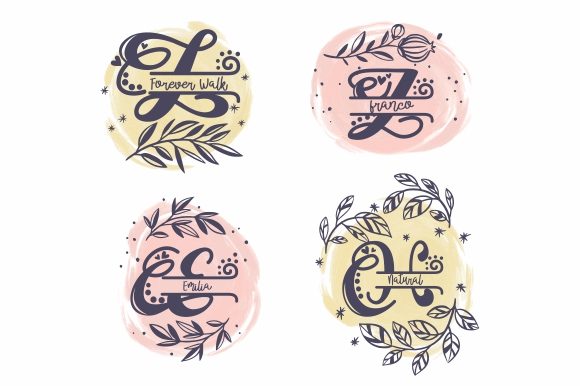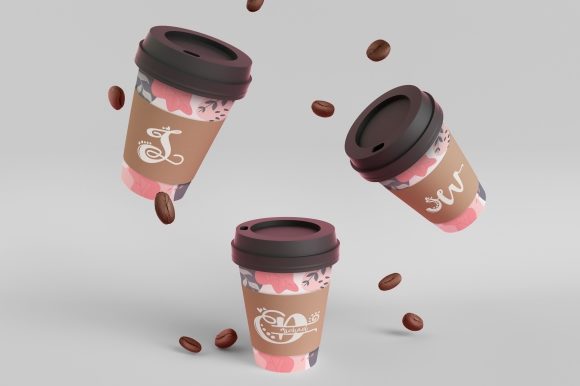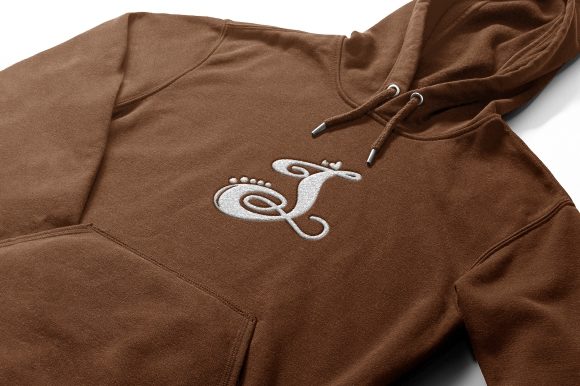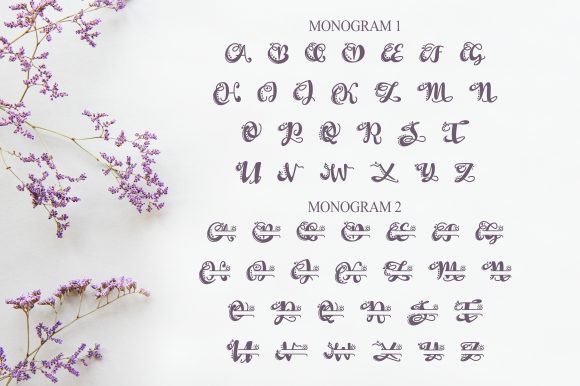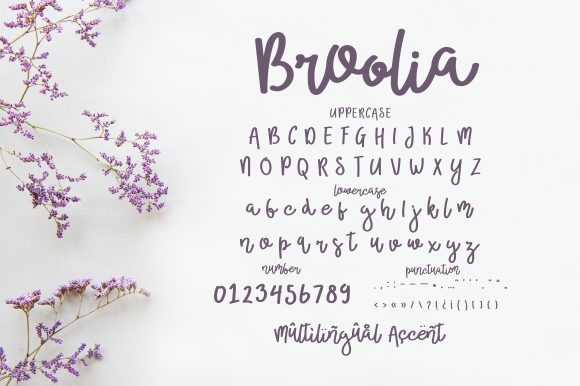
Introducing Broolia Monogram Font: The Sweet and Delicate Handwritten Font for Your Creative Projects
Are you a designer, crafter, or DIY enthusiast looking for a beautiful and elegant font to add a personal touch to your creations? Look no further than Broolia Monogram Font, a sweet and delicate handwritten font that is sure to capture your heart. With its authentic feel and versatility, Broolia Monogram is the perfect choice for a wide range of creative projects, from wedding invitations and stationery art to social media posts and greeting cards.
The Charm of Broolia Monogram Font
Broolia Monogram Font is a unique and charming handwritten font that exudes a sense of elegance and sophistication. Its delicate and intricate lettering makes it perfect for creating beautiful and eye-catching designs that are sure to impress. Whether you’re looking to create a romantic wedding invitation, a stunning piece of stationery art, or a cute greeting card, Broolia Monogram Font is the perfect choice.
Authentic Feel and Versatility
One of the standout features of Broolia Monogram Font is its authentic feel. This font is designed to look like it was written by hand, with subtle imperfections and variations that give it a human touch. This makes it perfect for creating designs that look personal and unique, rather than generic and mass-produced. Additionally, Broolia Monogram Font is incredibly versatile, and can be used for a wide range of creative projects, from digital designs to print materials.
Perfect for Wedding Invitations and Stationery Art
Broolia Monogram Font is a popular choice for wedding invitations and stationery art, and it’s easy to see why. Its delicate and elegant lettering makes it perfect for creating beautiful and romantic designs that set the tone for a special day. Whether you’re a bride looking for a unique and personalized wedding invitation, or a stationery artist looking for a beautiful font to use in your designs, Broolia Monogram Font is a great choice.
Eye-Catching Social Media Posts and Greeting Cards
But Broolia Monogram Font isn’t just limited to print materials. It’s also a great choice for creating eye-catching social media posts and greeting cards. With its delicate and intricate lettering, Broolia Monogram Font is sure to stand out on social media, and can be used to create beautiful and engaging designs that grab attention and inspire interaction. Similarly, Broolia Monogram Font is perfect for creating cute and personalized greeting cards that are sure to delight friends and family.
Why Choose Broolia Monogram Font?
So why choose Broolia Monogram Font for your creative projects? Here are just a few reasons:
- Unique and charming design: Broolia Monogram Font has a unique and charming design that is sure to capture your heart.
- Authentic feel: Broolia Monogram Font has an authentic feel that makes it look like it was written by hand.
- Versatility: Broolia Monogram Font is incredibly versatile, and can be used for a wide range of creative projects.
- Elegant and sophisticated: Broolia Monogram Font is perfect for creating elegant and sophisticated designs that are sure to impress.
In conclusion, Broolia Monogram Font is a sweet and delicate handwritten font that is perfect for designers, crafters, and DIY enthusiasts looking to add a personal touch to their creations. With its authentic feel, versatility, and elegant design, Broolia Monogram Font is the perfect choice for a wide range of creative projects, from wedding invitations and stationery art to social media posts and greeting cards. So why wait? Fall in love with Broolia Monogram Font today, and start creating beautiful and unique designs that inspire and delight.